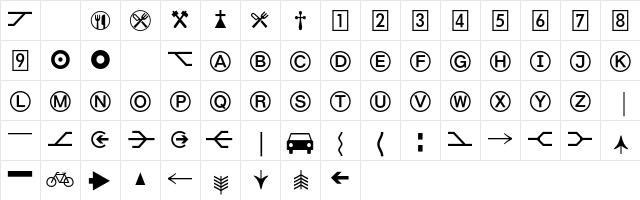
Complete Bundesbahn Pi 3 glyph index. Displaying only characters natively supported by Bundesbahn Pi 3 font.
Bundesbahn Pi is a composed and adaptable typeface that performs quietly and consistently across a wide range of design contexts.